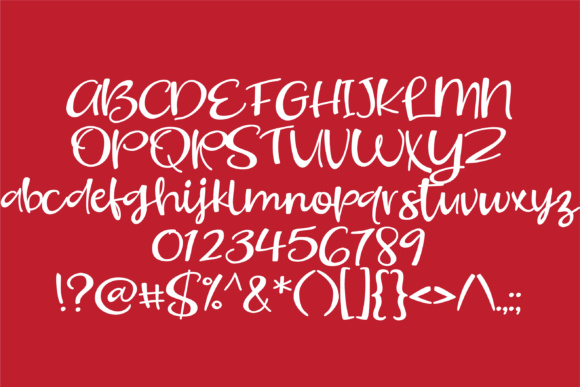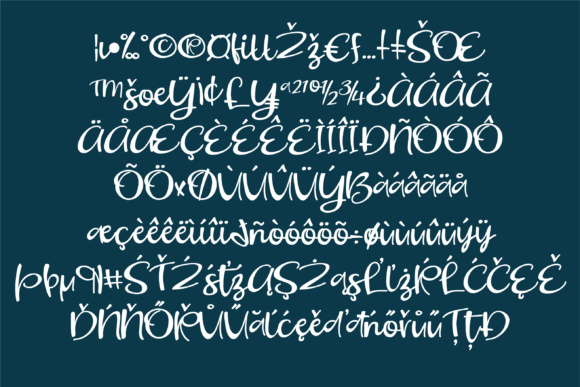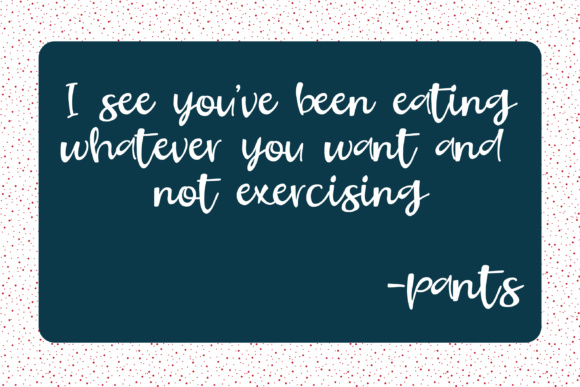
HomeScript FontsHalf Baked Font Script Fonts Half Baked Font FacebookXPinterestWhatsApp Half Baked Font Poster 2 Half Baked Font Poster 3 Half Baked Font Poster 4 Half Baked Font Poster 5 About Half Baked Font This casual hand-written script has a very easy going feel. DOWNLOAD ON CREATIVE FABRICAThis font is sold and delivered by Creative Fabrica. Font Canyon may earn a commission if you buy through this link. People also explored Arlina Font Farmhouse Font Amelliz Font Gloria Bright Font Roxeston Font Gostend Font Romeland Font Aesthetically Font Oatmeal 438 0 TagsHalf Baked Font Previous articleThe Incisive FontNext articleLobster Font LEAVE A REPLY Cancel reply Comment: Please enter your comment! Name:* Please enter your name here Email:* You have entered an incorrect email address! Please enter your email address here Website: Save my name, email, and website in this browser for the next time I comment. Personal Use Free Bosk Personal Use Free Read more about this font Bellarin Personal Use Free Read more about this font Moon Light Personal Use Free Read more about this font Zojihun Personal Use Free Read more about this font BLOG Elegant Wedding Invitation Fonts – Handwritten & Script Fonts Elegant Wedding Invitation Fonts Your wedding day is one of the most important moments of your life, and every detail matters—including your invitation design. Our... To increase your work productivity, choose the most readable fonts. Where to Buy American Fonts Online in 2024 Top 7 Google Fonts Alternatives for Faster and Privacy-Friendly Web Design (2025)